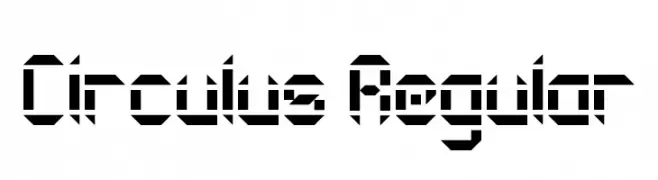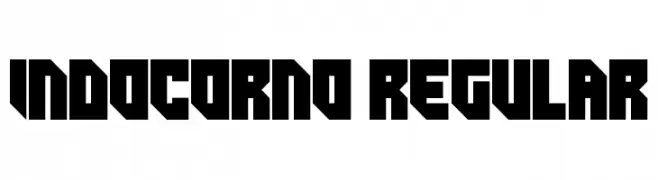
A geometric, maze-like font with a bold, digital aesthetic.
A bold, geometric font with a futuristic and modern design.
A bold, decorative font with a retro-futuristic style and intricate line work.
A bold, geometric font with a futuristic and digital aesthetic.
A bold, geometric font with sharp angles and a modern, edgy style.
A bold, angular font with a strong, cohesive design.
A bold, geometric font with sharp angles and a modern, industrial feel.
A bold, pixelated font with a retro, 8-bit style.
A bold, geometric font with a dynamic and futuristic style.
A bold, angular font with a pixelated, edgy style.